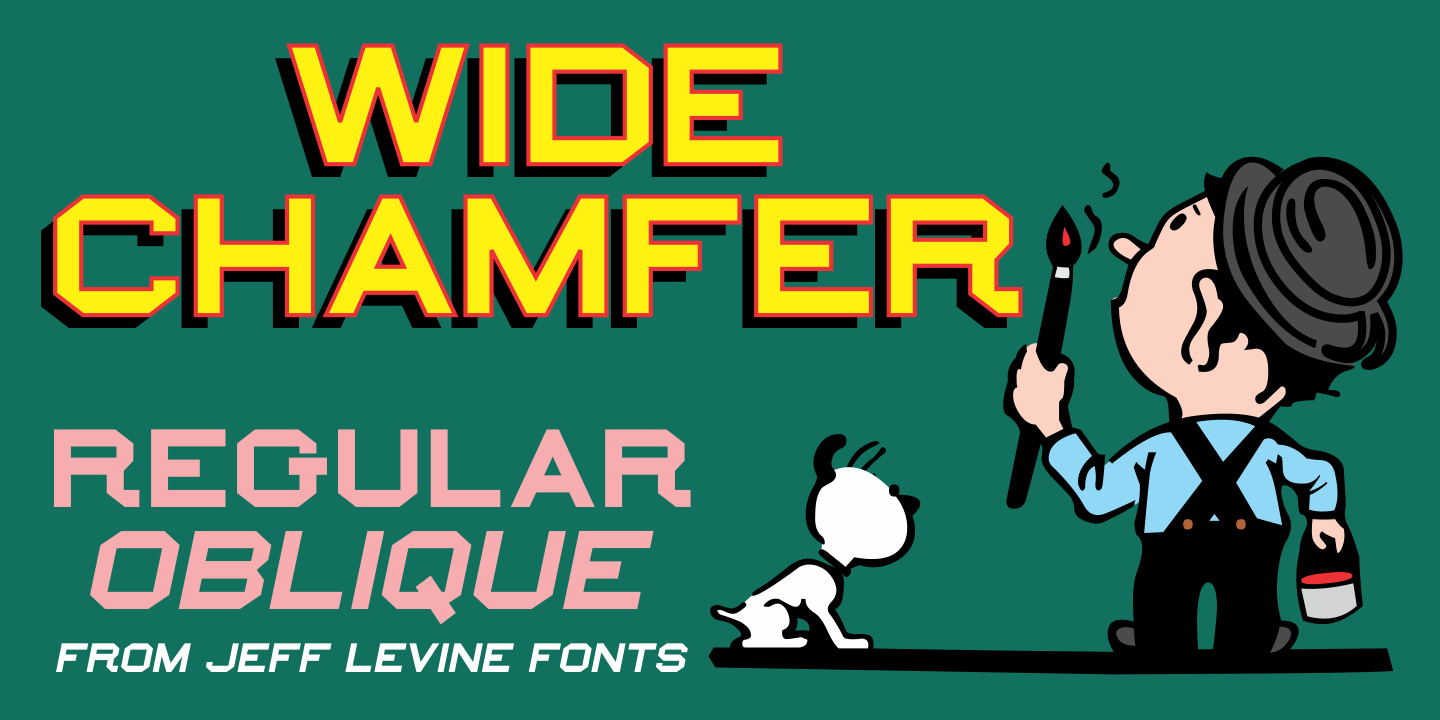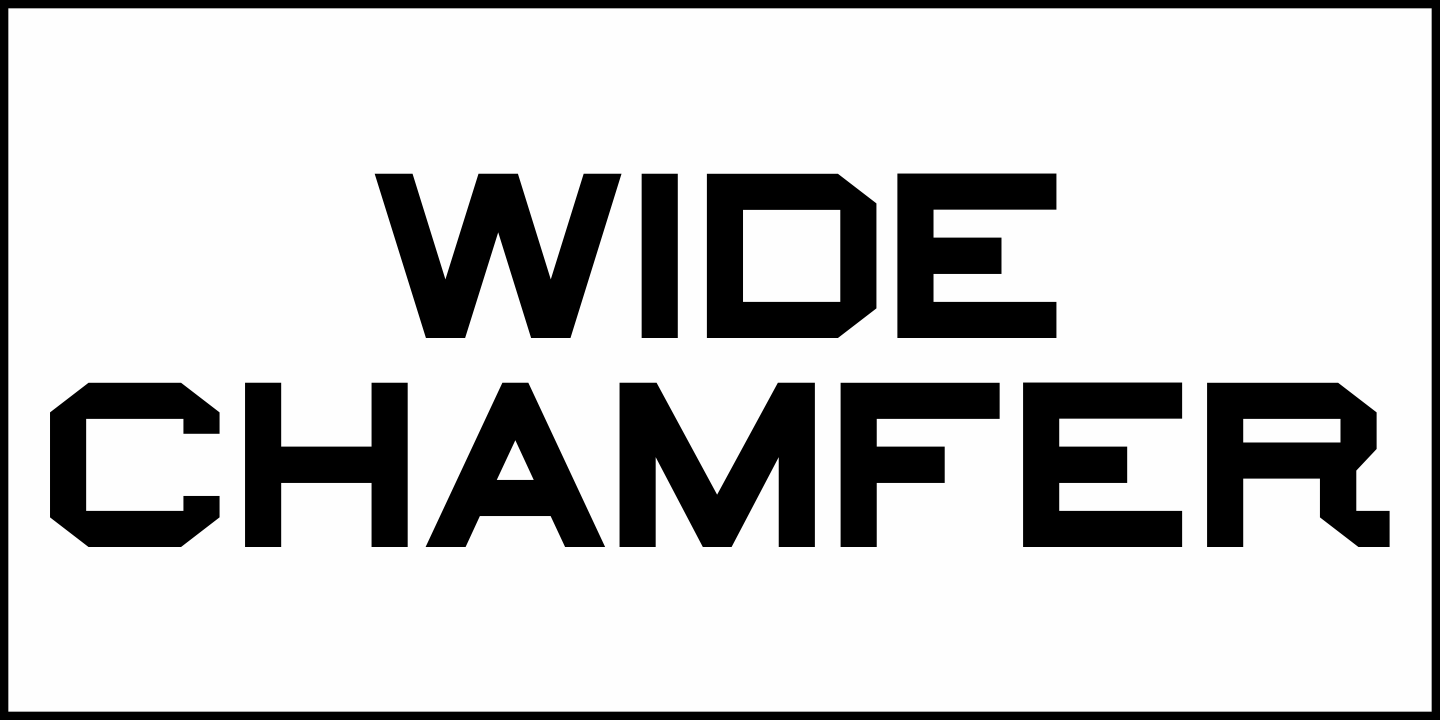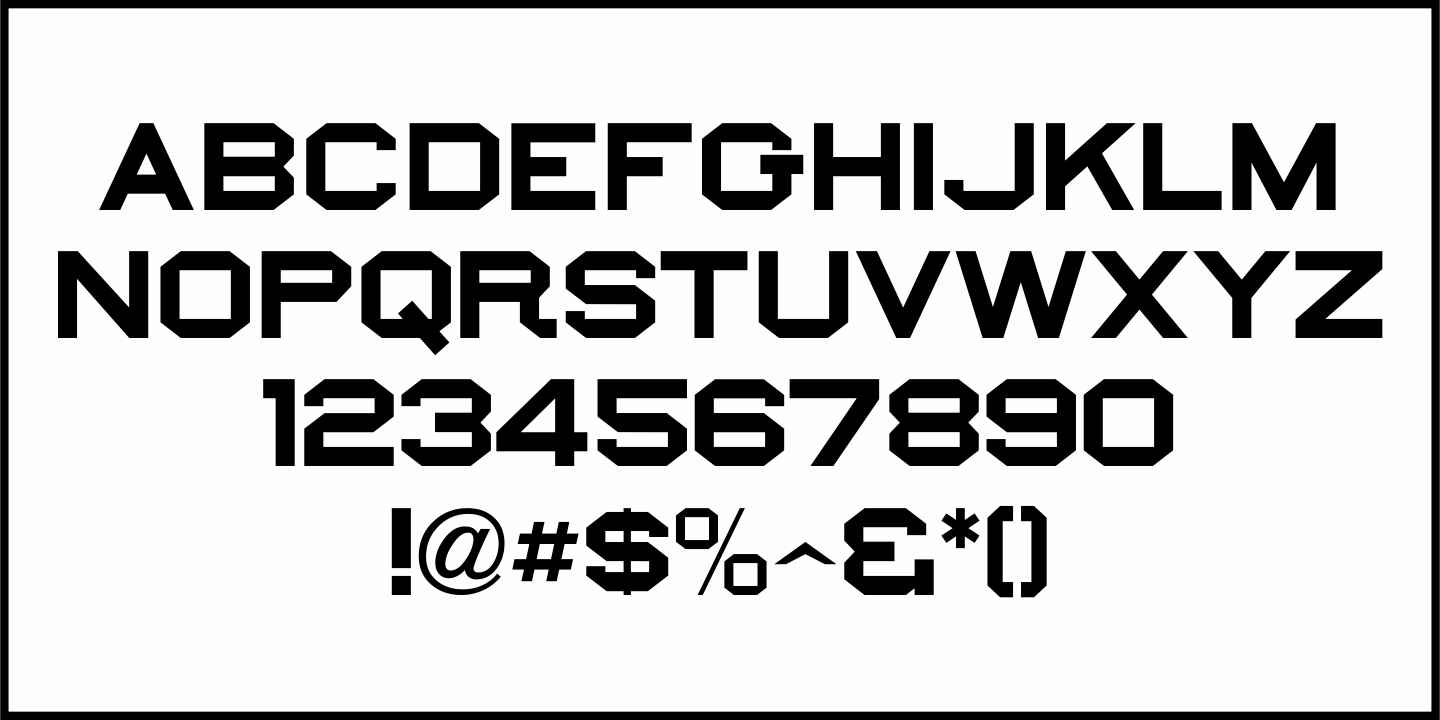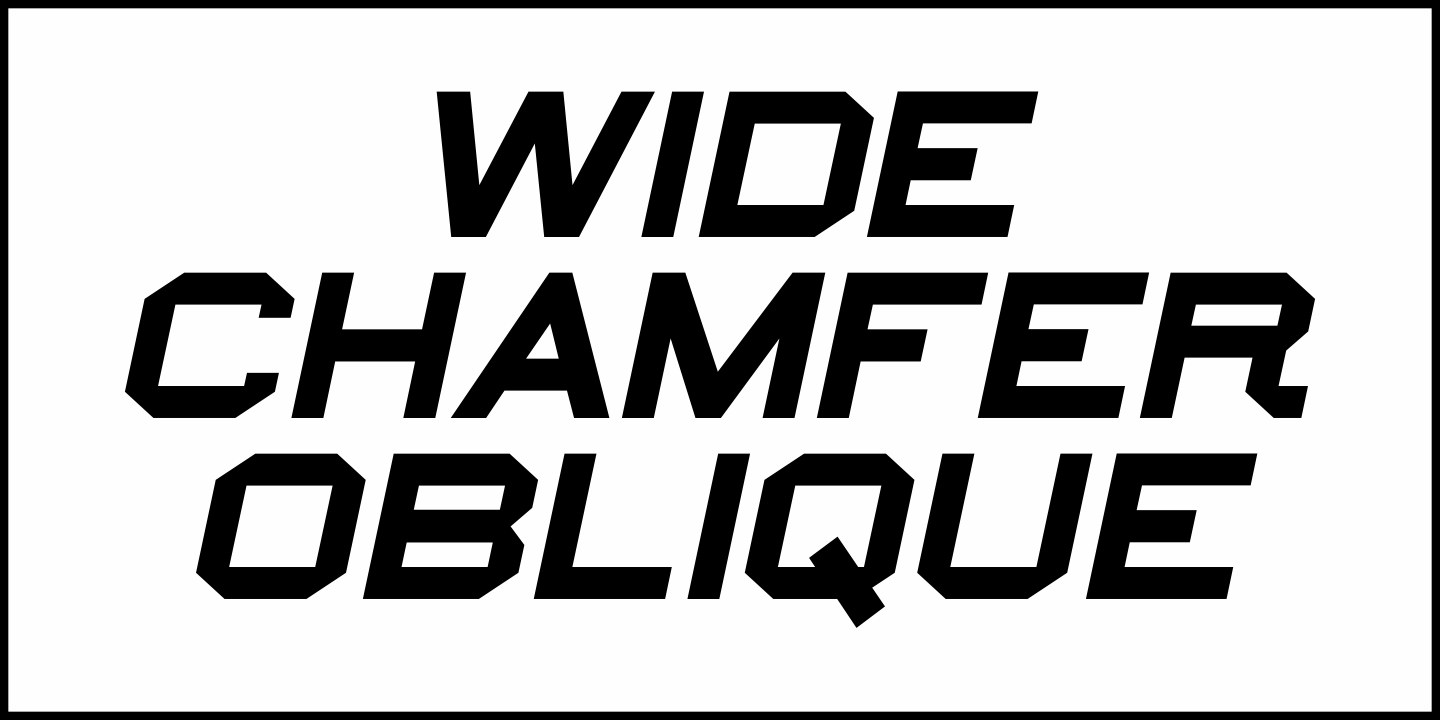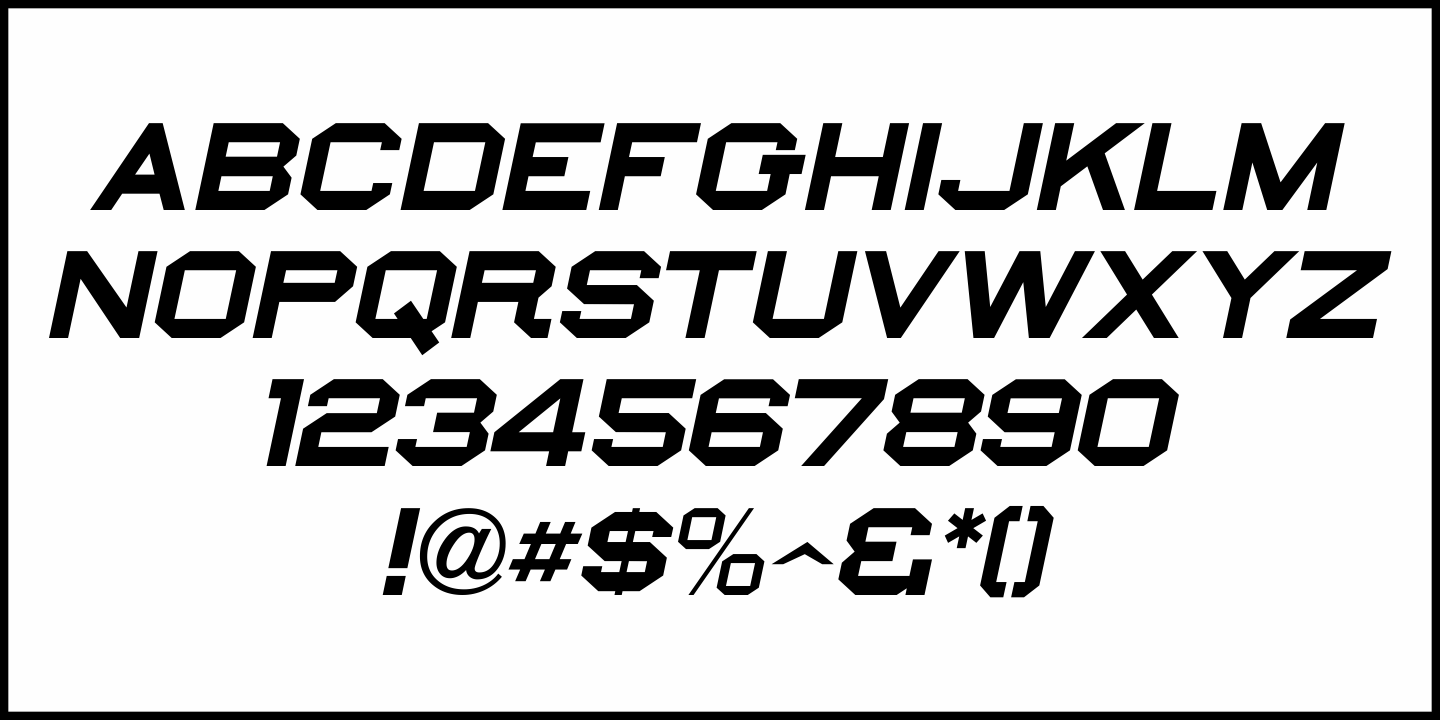
Wide Chamfer
Inside the pages of an untitled sign painting textbook (circa 1902) was an example of the classic chamfered sans serif alphabets used by tradesmen of the time.
This version was wider than most, and perfect for a digital version called Wide Chamfer JNL, which is available in both regular and oblique versions.
Wide Chamfer JNL Regular by Jeff Levine Fonts